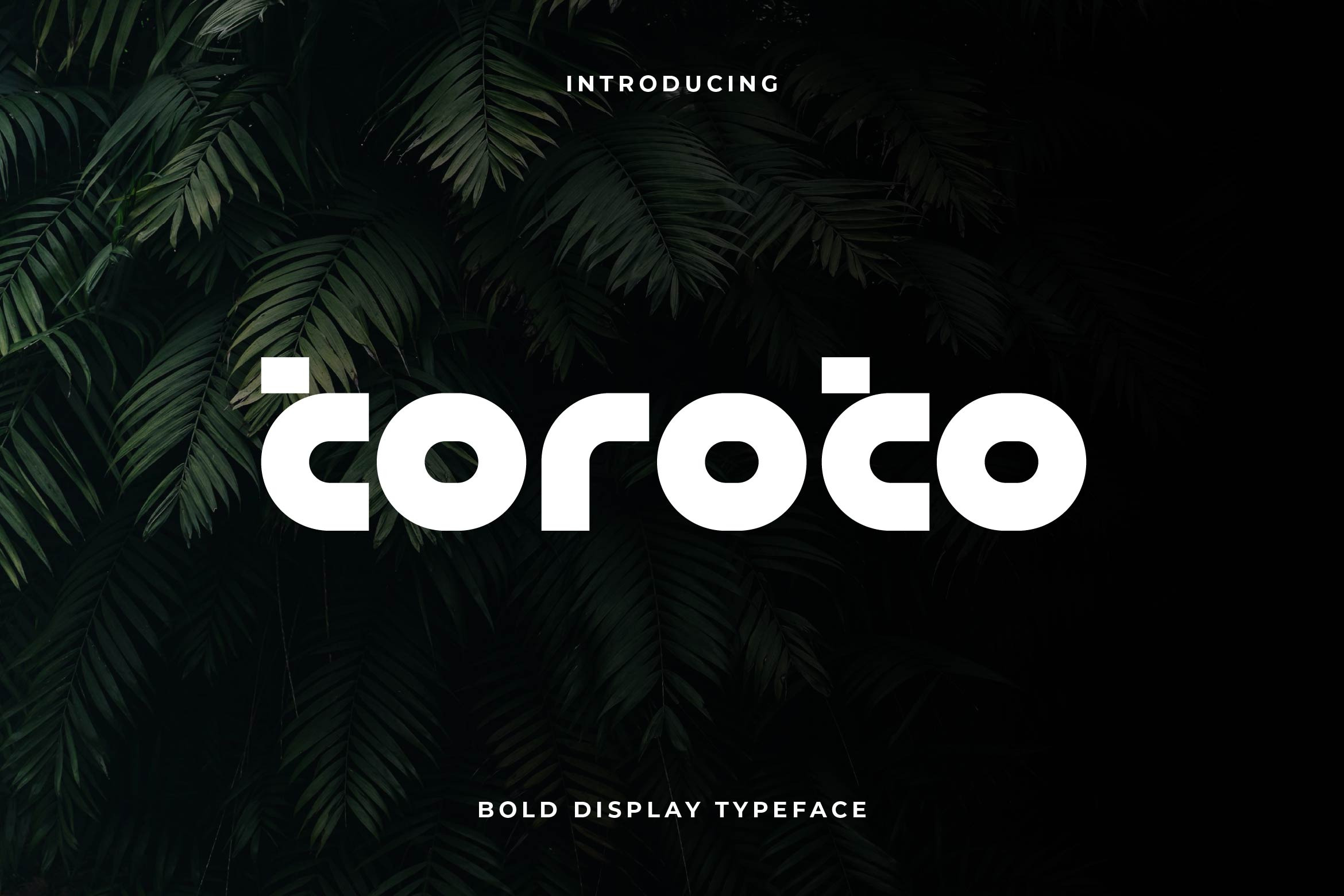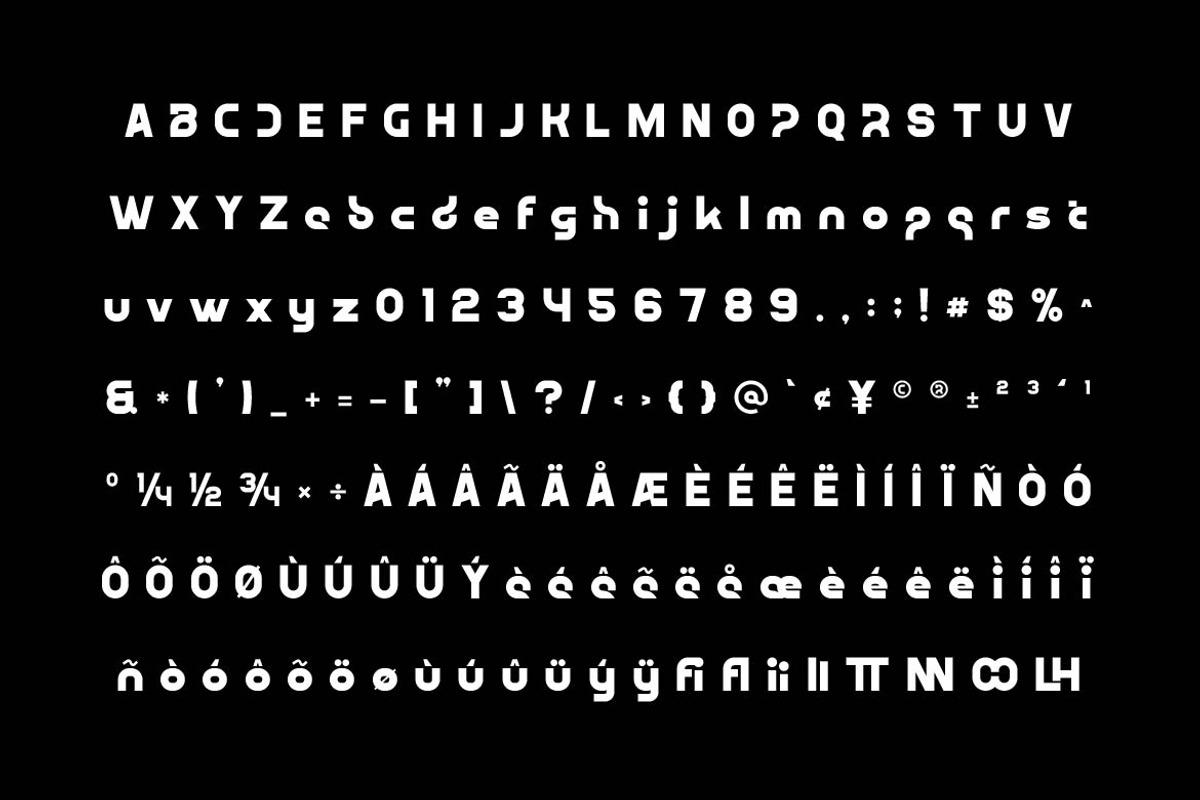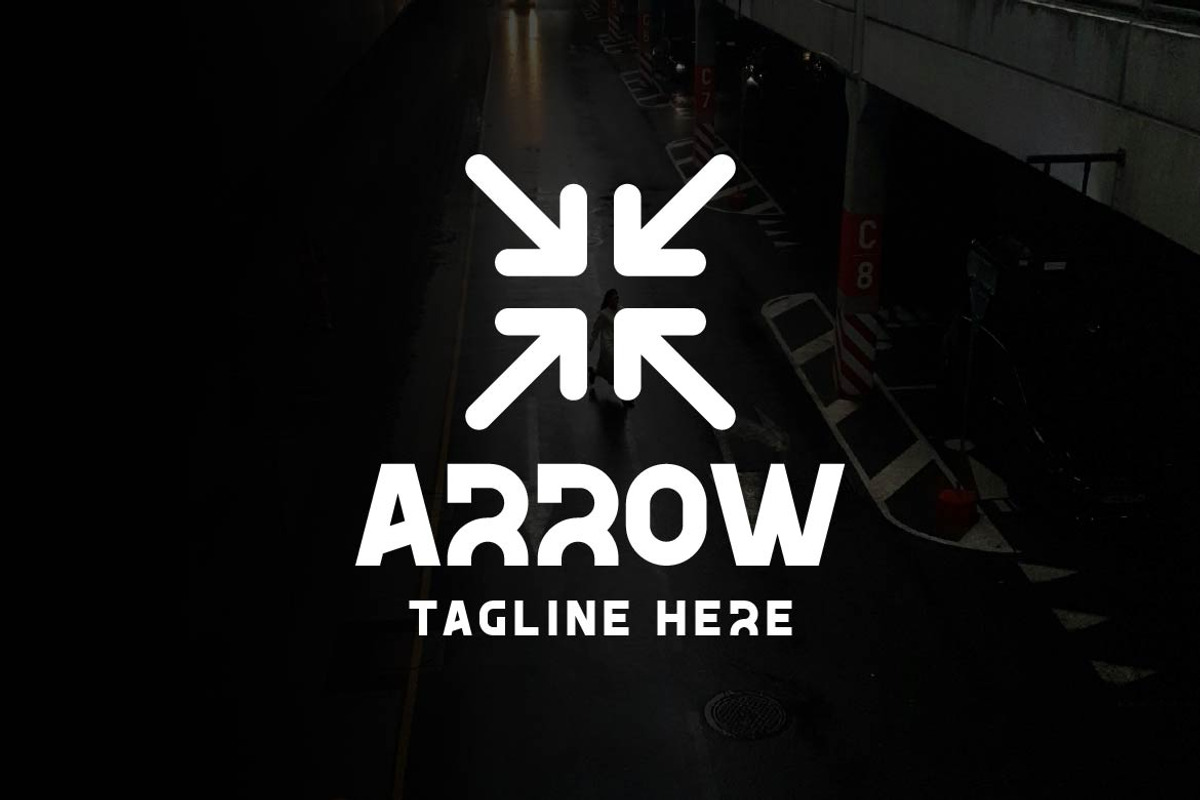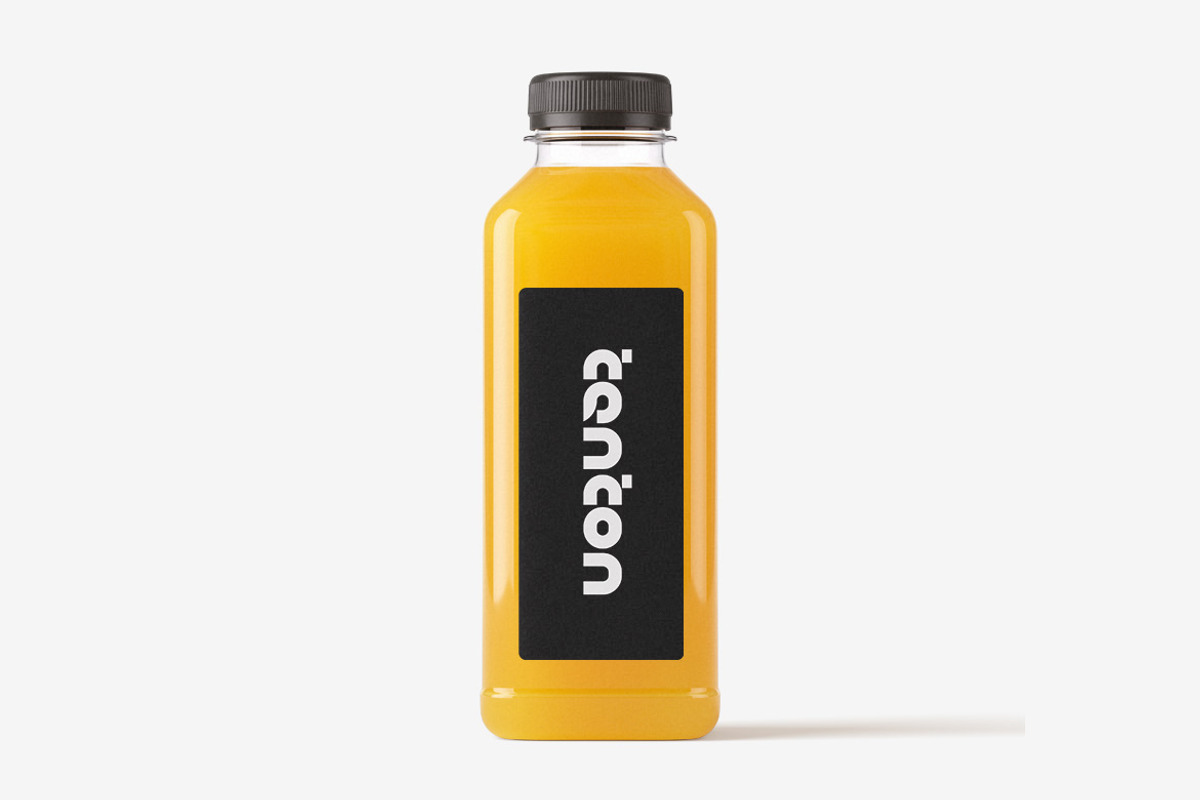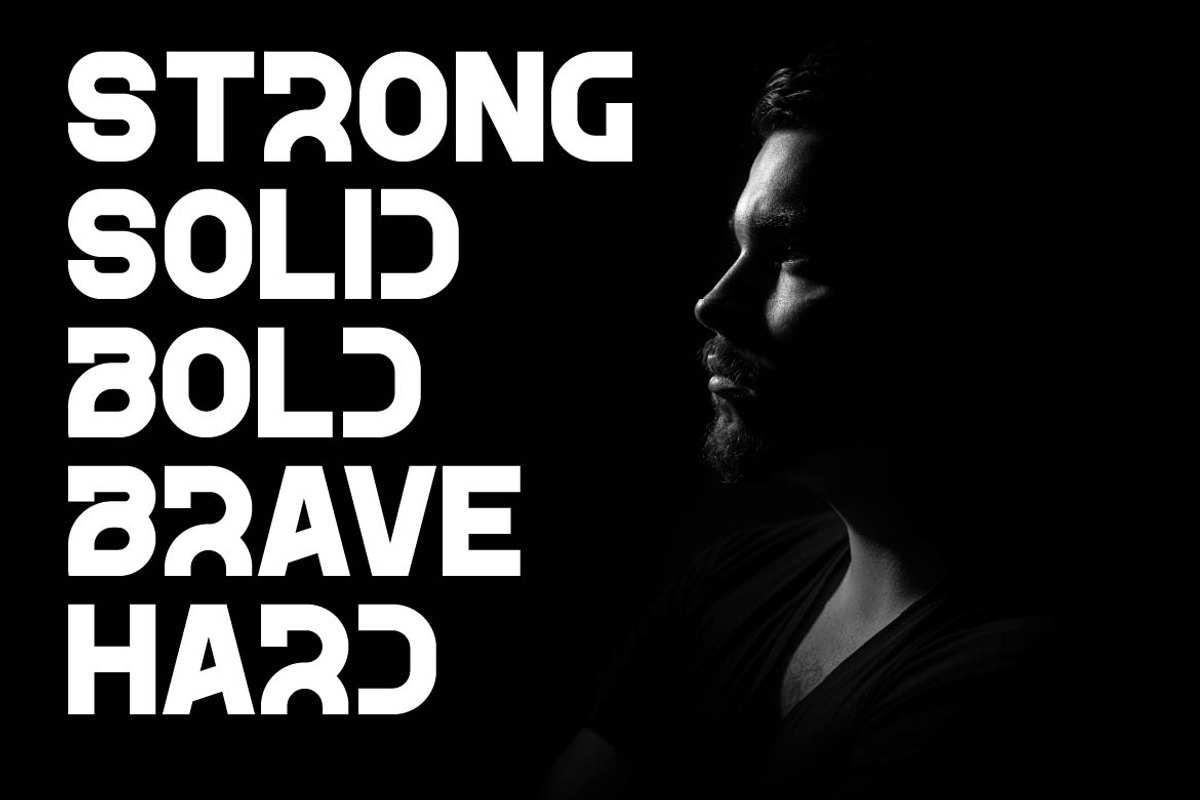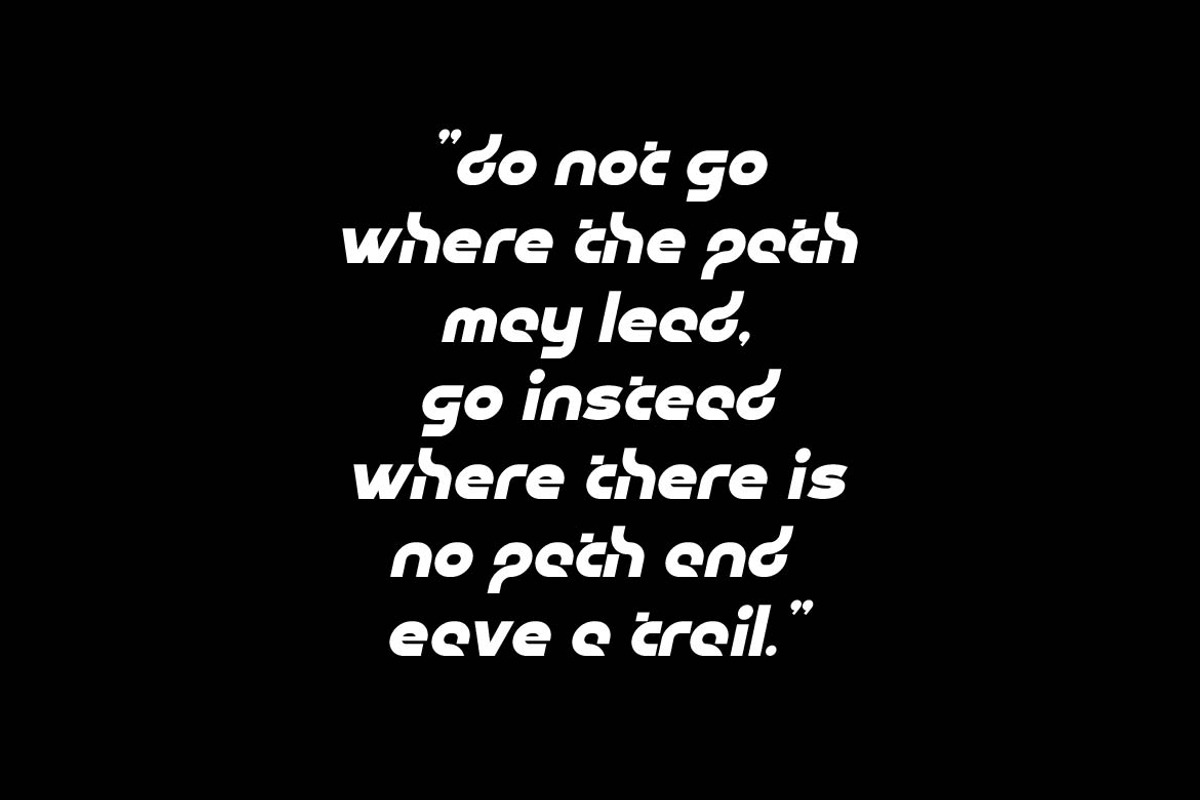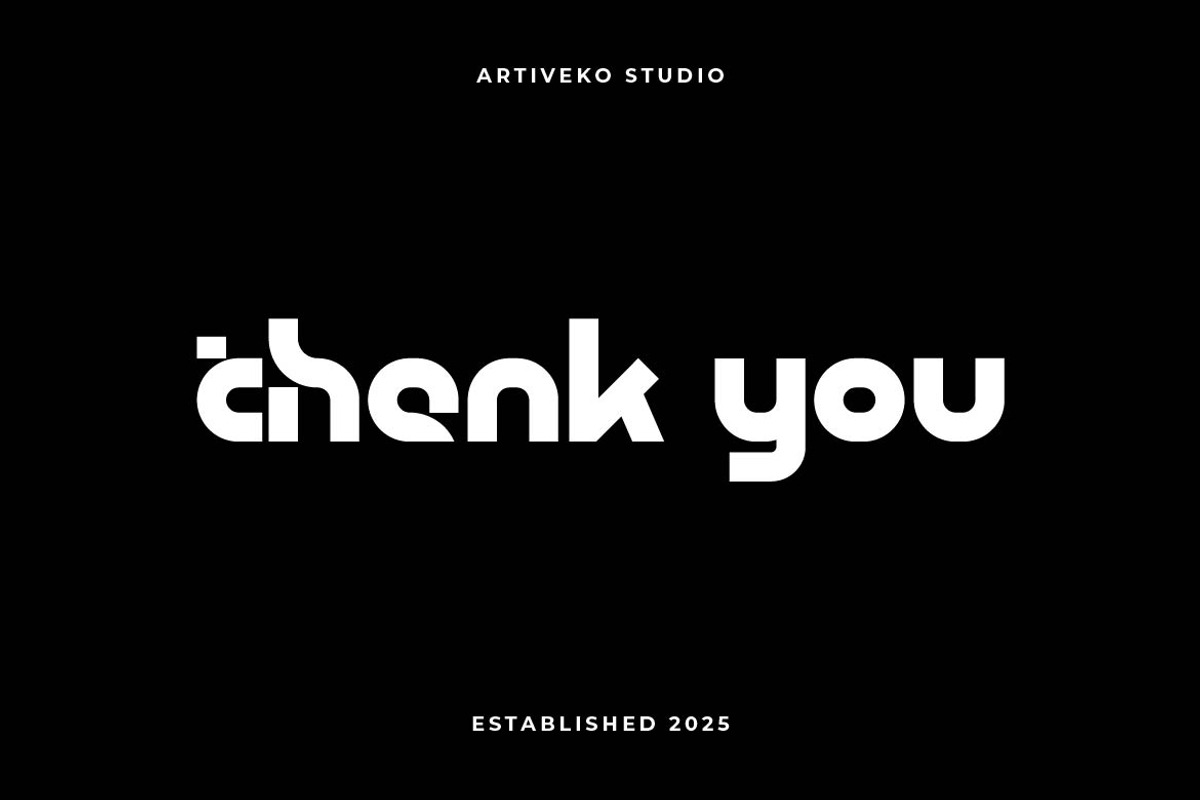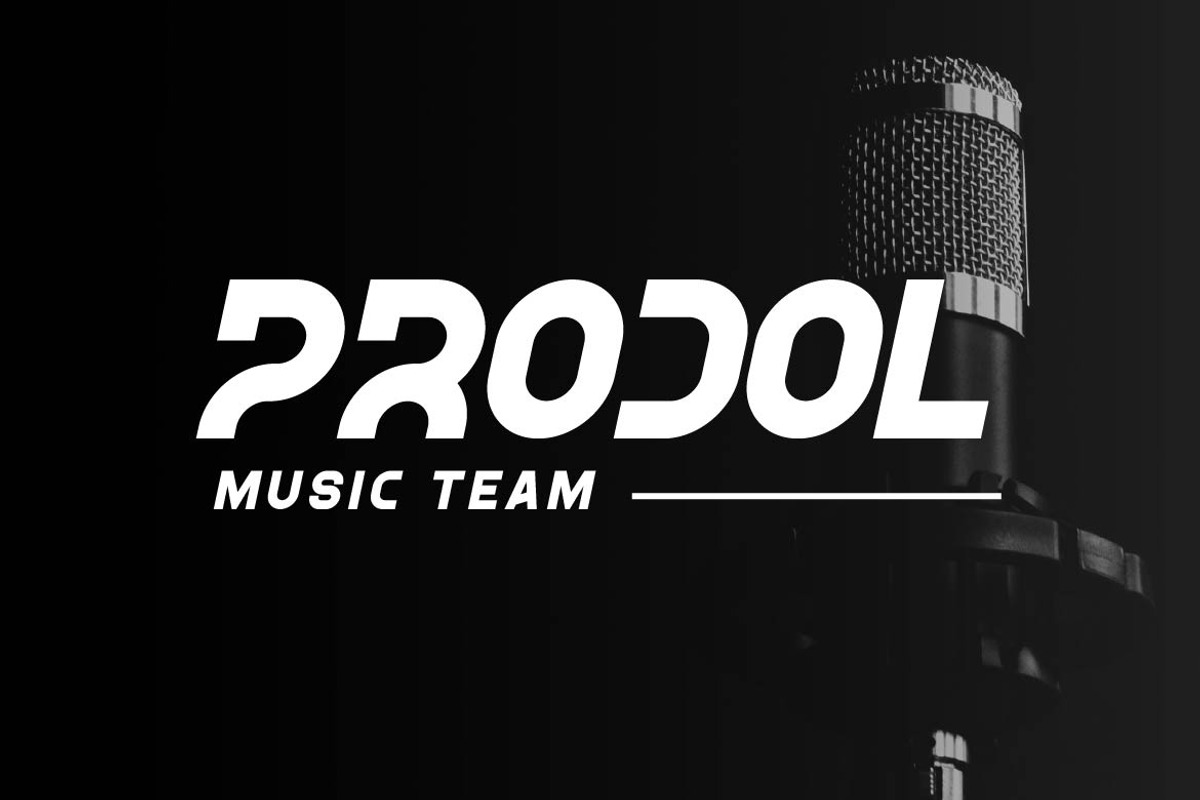
Toroto Bold Round Logo Font
Toroto is a powerful bold sans serif font crafted for impactful logo design and confident visual identity. With thick, clean strokes and balanced proportions, Toroto delivers a strong, modern presence that instantly elevates any brand. Its sharp structure and solid geometry make it perfect for logos, headlines, packaging, sports branding, tech visuals, and bold marketing materials.